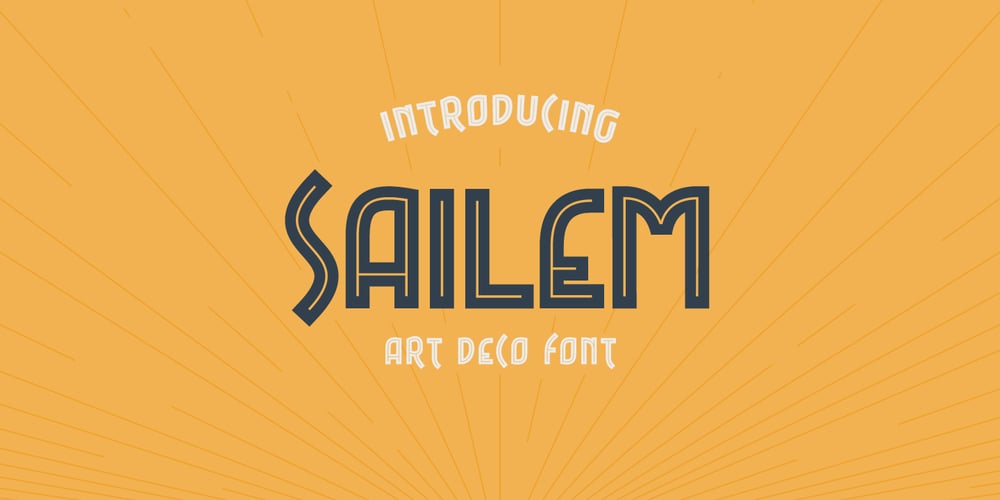
Sailem Font Family was designed by Roman Korolev and published by Kaer. Sailem contains 1 styles and family package options. Introducing my new Art Deco inspired typeface Sailem with line in the middle. This is a display font perfect for contemporary magazines, vintage branding, space posters, steampunk headers, and advertising.What’s included?* Middle line style* Uppercase* Numbers* Symbols* PunctuationI hope you enjoy this font. Follow my shop to receive updates of products and the very hottest news! If you have any question or issue, please contact me: kaer.pro@gmail.com Please request to add additional characters and glyphs if you need! Thank you!